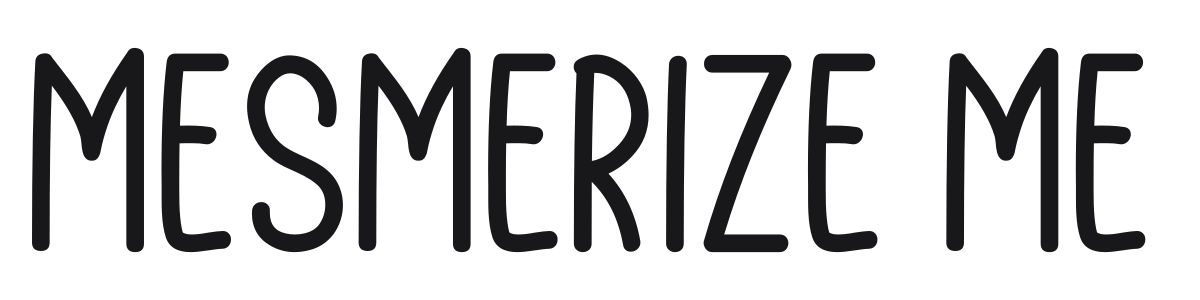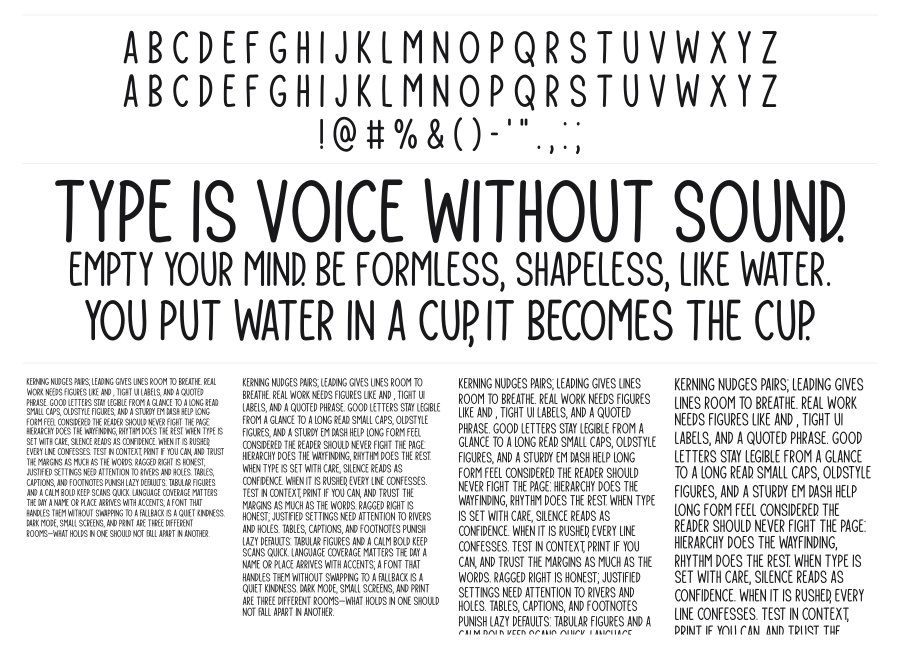
Mesmerize Me
Mesmerize Me is a condensed hand-drawn sans with a bouncy, irregular baseline that gives it an irresistible casual energy. Rounded terminals and subtly varying letter proportions keep it feeling organic rather than mechanical. It works well anywhere a headline needs warmth and personality without tipping into full-on script territory.